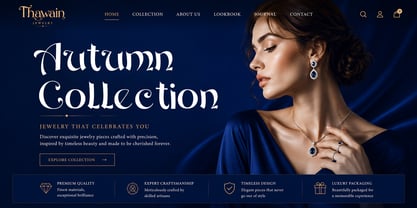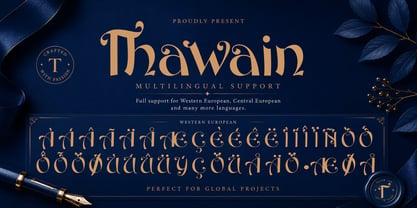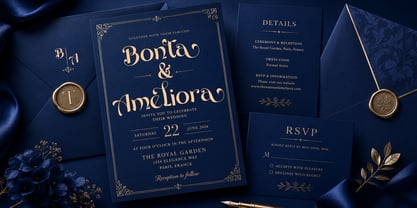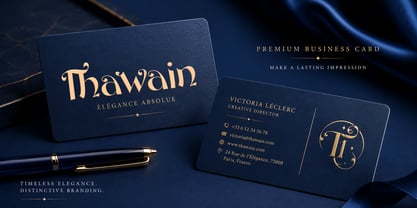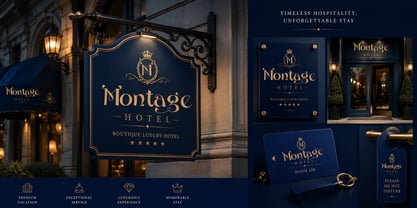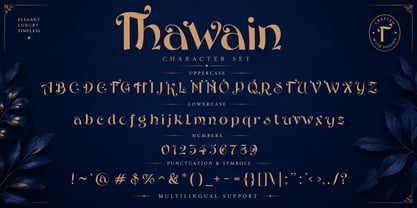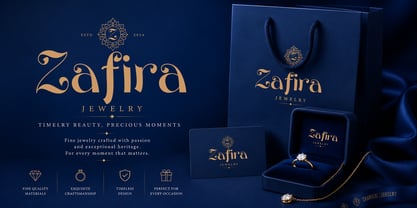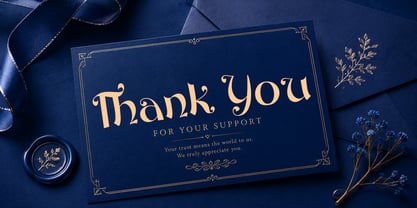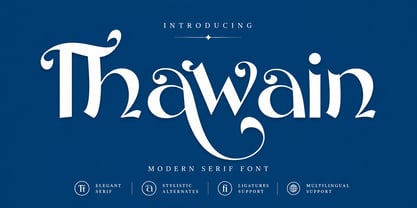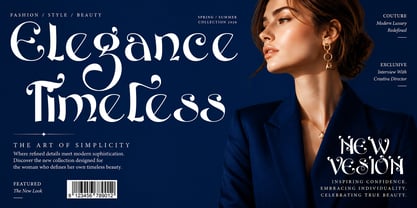
Thawain Serif
La famille de polices Thawain Serif a été conçue par Teuku Saifullah et publiée par Shape Studio. Thawain Serif contient 1 styles.
Introducing Thawain Serif is a bold, unique, fashionable, luxurious, modern and elegant serif with lots of ties and alternatives that will make your presentation more amazing and stand out! Thawain Serif also supports Multi Languages. and PUA has been coded!
This font is a versatile font and is perfect for any modern project including branding designs, logos, invitations, wedding decorations, website designs, Instagram, business cards, and more!